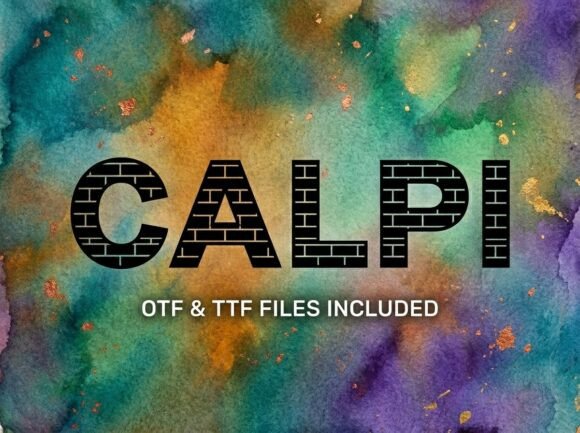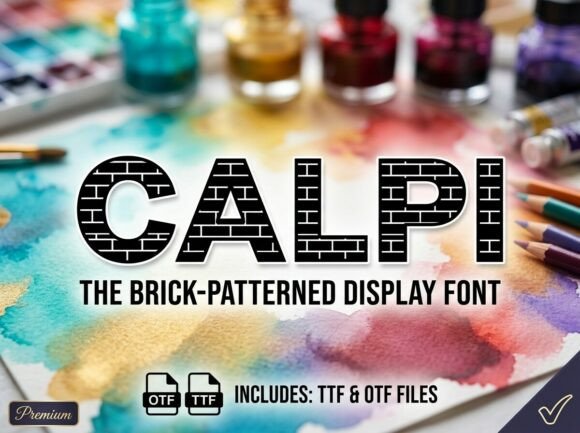
The Perfect Typography to Make Your Designs Pop
Remember that moment when you stumbled upon the perfect font, and your design just came alive? It’s that instant rush of creativity and excitement that drives us to push the boundaries of our art. And that’s exactly what the Calpi Font is designed to do – to be the center of attention, to stand out, and to leave a lasting impression.
| 👤 Author | pavel |
As a versatile and unique decorative display font, Calpi Font is perfect for designers who want to break away from the ordinary and create something truly special. With its strong visual personality and artistic elements, this font is ideal for bold headlines, artistic logos, and creative packaging that demand attention and style. Whether you’re a seasoned designer or a creative entrepreneur, Calpi Font is a valuable addition to your toolkit, offering a professional and polished finish that’s sure to elevate your designs to the next level.
- Font Family: Calpi is a sans-serif font family designed for digital use.
- Unique Characteristics: Calpi features a clean, modern design with a unique geometric feel, making it suitable for digital interfaces, user interfaces, and branding.
Designer Review: Calpi Font
Overall, I’m quite impressed with Calpi Font, but as with any design, it’s not without its flaws. Let’s dive in and explore what works well and what could use some improvement.
- Unique Personality: Calpi Font has a distinct, quirky personality that sets it apart from other fonts. It’s perfect for designers looking to add some visual interest to their projects.
- Legibility: Despite its unconventional design, Calpi Font is surprisingly legible, making it suitable for a wide range of applications.
- Wide Character Set: The font includes a comprehensive character set, including accented characters and punctuation, making it a great choice for international projects.
- Limited Font Sizes: Calpi Font is best suited for larger font sizes, as smaller sizes can make the letters appear fuzzy or distorted.
- Lack of Italic Styles: The font only includes upright styles, which can limit its versatility in certain design scenarios.
- Not Ideal for Body Text: Due to its unique design, Calpi Font may not be the best choice for body text or large blocks of text, where readability is crucial.
Overall, I’d recommend Calpi Font for designers who want to add a touch of personality to their projects, but it may not be the best choice for every design scenario. With some careful consideration of its limitations, Calpi Font can be a great addition to any design toolkit.
Getting the Most Out of Calpi Font
For optimal results, use Calpi Font in conjunction with high-contrast colors and clean design elements. Experiment with different font sizes and styles to create visually appealing designs.
Calpi Font is ideal for:
- Health and wellness marketing
- Travel and tourism promotions
Can I use the Calpi Font for digital signage or other high-resolution applications?
Yes, the Calpi Font is designed to be scalable and suitable for high-resolution applications such as digital signage, mobile devices, and web design. The font has been optimized for clarity and readability at high resolutions, making it an excellent choice for a wide range of digital applications.